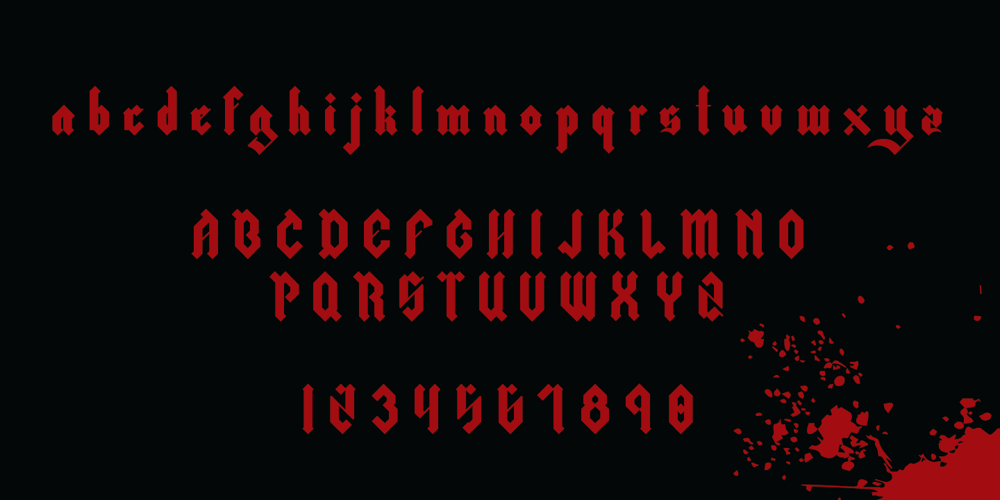
Schwarz Font Family was designed by Miguel Ibarra and published by Miguel Ibarra Design. Schwarz contains 1 styles and family package options. Schwarz is a Black Letter typeface inspired by all that is black. Jagged edges and sharp diagonals make Schwarz a head banging font. Some stylistic alternates and ligatures are also available.